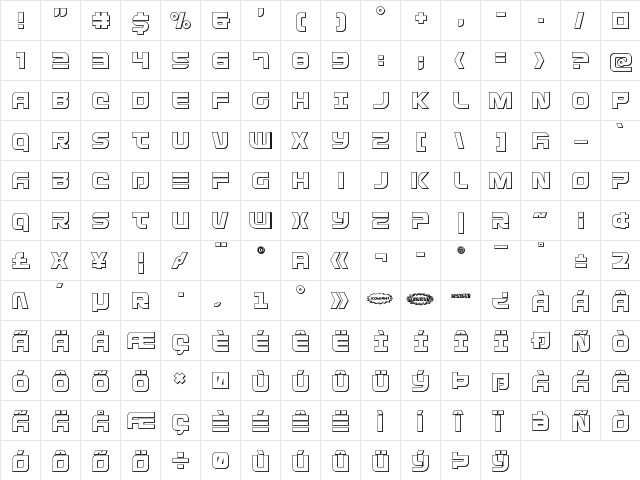
Defcon Zero Outline Outline
Design Context for Defcon Zero Outline Typeface
Defcon Zero Outline brings ornamental detail and strong personality to headlines and identities, where visual impact matters more than quiet functionality.
Font Pairing: Pair with a clean neutral sans-serif for body copy to let Defcon Zero Outline's character lead without overwhelming the composition.
Pro Tip: Use Defcon Zero Outline exclusively at display sizes — it was designed to be seen, not read at length. Let a neutral companion handle body copy.